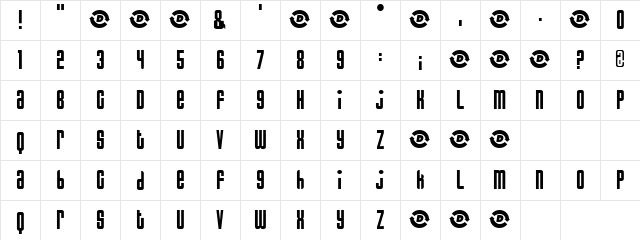
JeannieShrimpton Regular
Design Context for JeannieShrimpton Typeface
JeannieShrimpton offers clean, dependable letterforms without strong stylistic allegiance, making it a practical choice for designers who need flexibility.